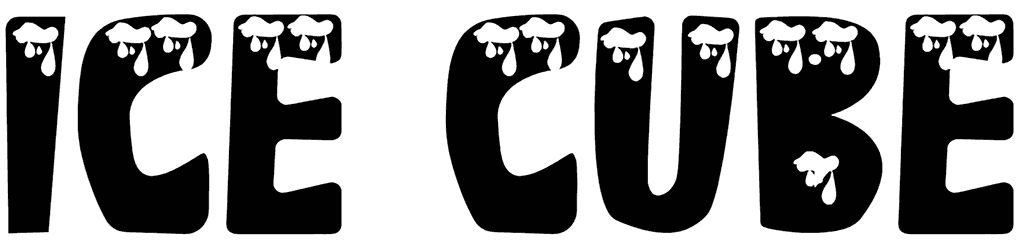
Ice Cube Font
Ice Cube could be handy if you’re in charge of a project with a humorous tone. Although it lacks lowercase letters, this fancy ice font is nonetheless great for use in print and digital publications like logotypes and banner designs, as well as for fashion and advertising because of its icy lettering and whimsical appearance.